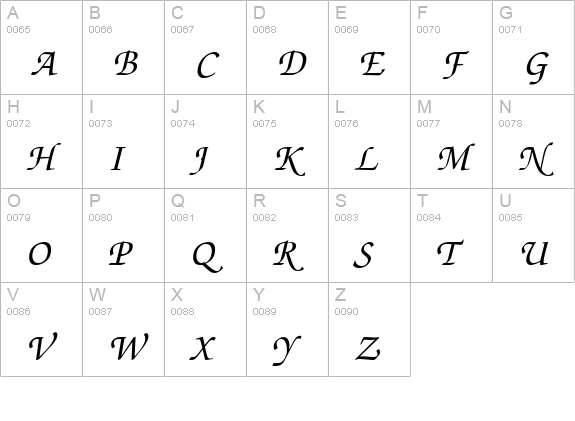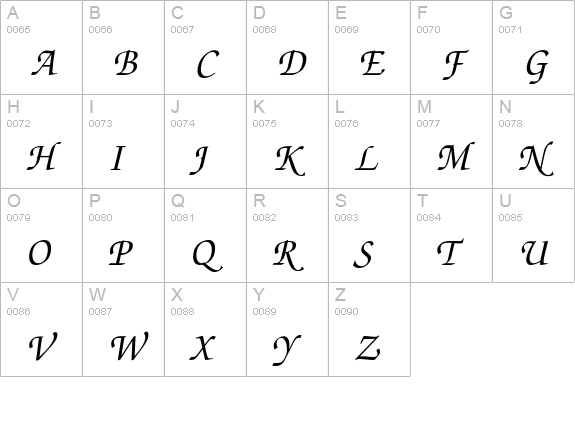
Chancery Script Medium SSi Medium Italic Font Details
Chancery Script Medium SSi Medium Italic is a balanced, medium-weight, italic variant in the Chancery typeface family \xE2\x80\x94 well suited to sub-headlines, navigation, and balanced editorial work.
Chancery Script Medium SSi Medium Italic font is a classic and elegant typeface that exudes sophistication and charm. Its graceful, flowing strokes give off a sense of refined beauty, making it perfect for invitations, wedding stationery, and other formal designs. The italic style adds a touch of flair and personality to any project, making it stand out from the crowd. And the best part? This exquisite font is available for free download at FontsMarket.com! Whether you're working on a wedding invitation, a special event flyer, or any other project that calls for a touch of elegance, Chancery Script Medium SSi Medium Italic font is the perfect choice. Download it today and elevate your designs with its timeless appeal.